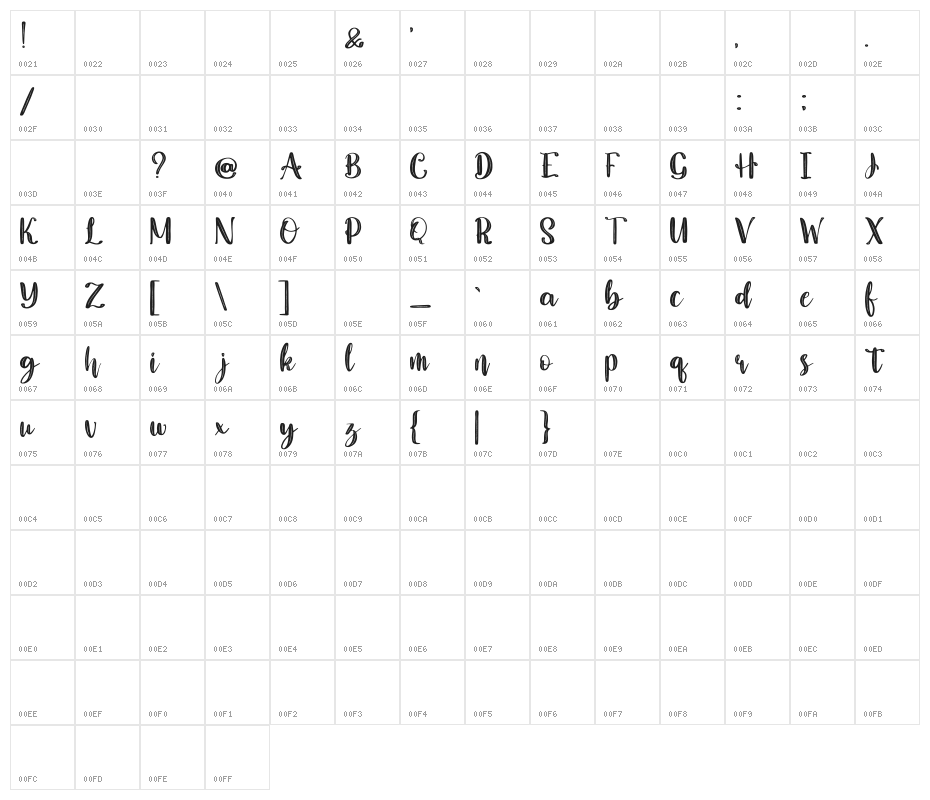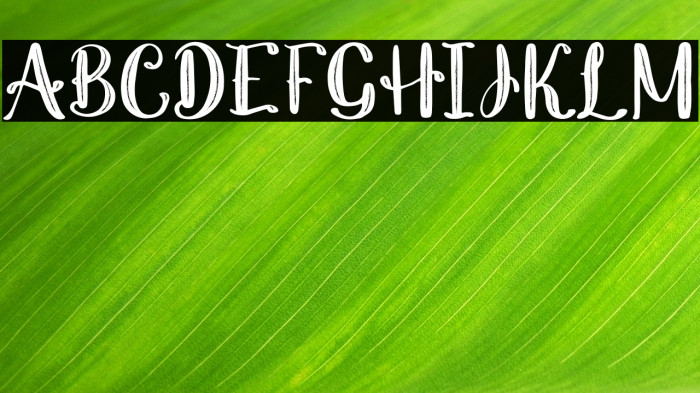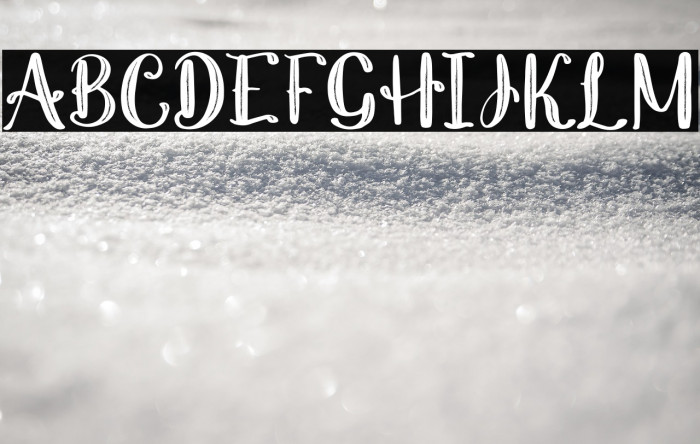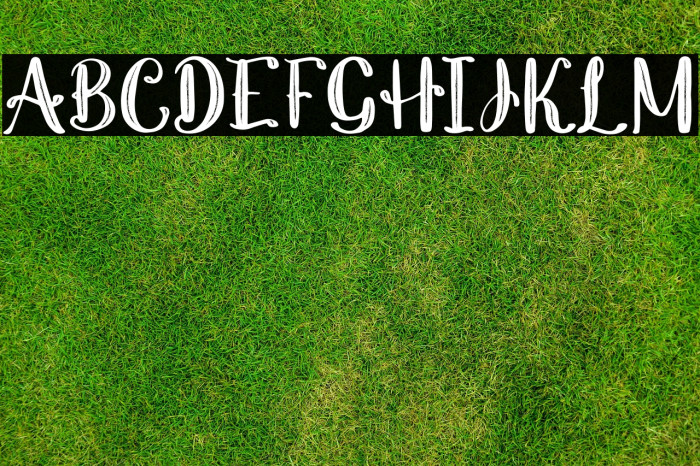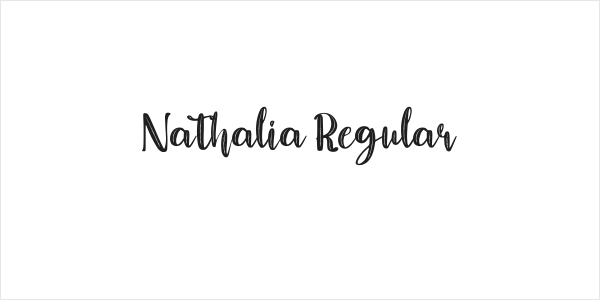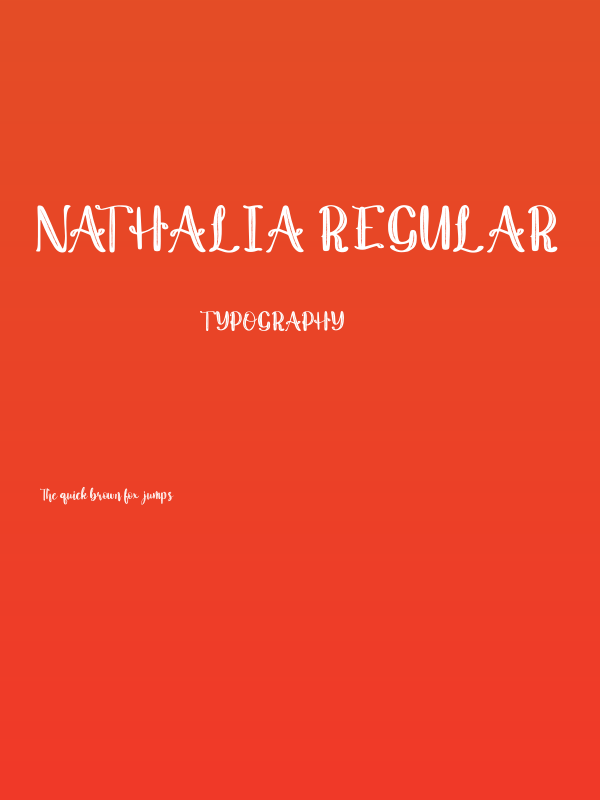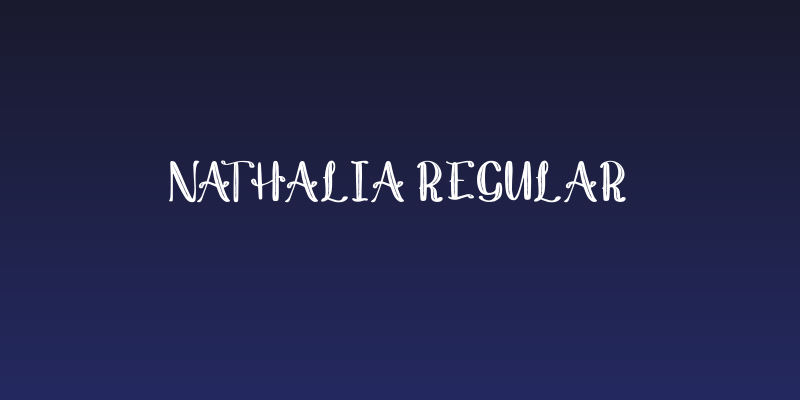
Nathalia Regular Font
Nathalia Regular Description
This font features a playful and artistic script style with a hand-drawn appearance. The letters are characterized by their flowing, cursive forms and varying stroke widths, which add a dynamic and lively feel. The uppercase letters are bold and prominent, while the lowercase letters maintain a consistent fluidity, enhancing the overall whimsical aesthetic. The font includes a full set of uppercase and lowercase letters, numbers, and a selection of special characters, making it versatile for various design needs. Its unique style is perfect for projects that require a personal and creative touch.